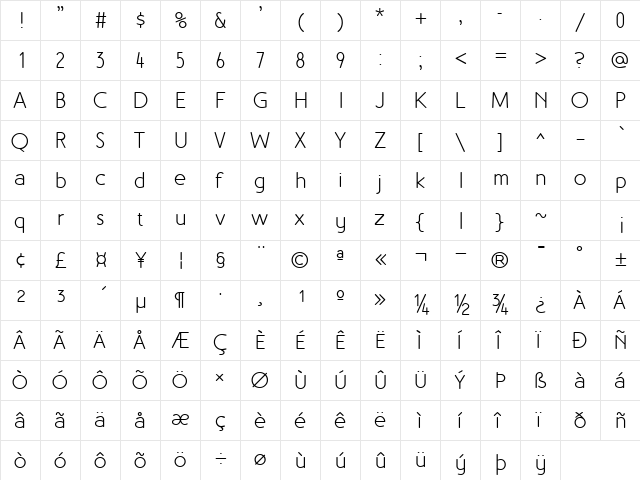
Malvern LF Regular
Design Context for Malvern LF Typeface
Malvern LF takes a measured approach to typography — its balanced proportions and neutral character make it a reliable workhorse for both digital and print work.
Pro Tip: Pair Malvern LF with a font of contrasting weight or personality to build a more expressive typographic hierarchy.